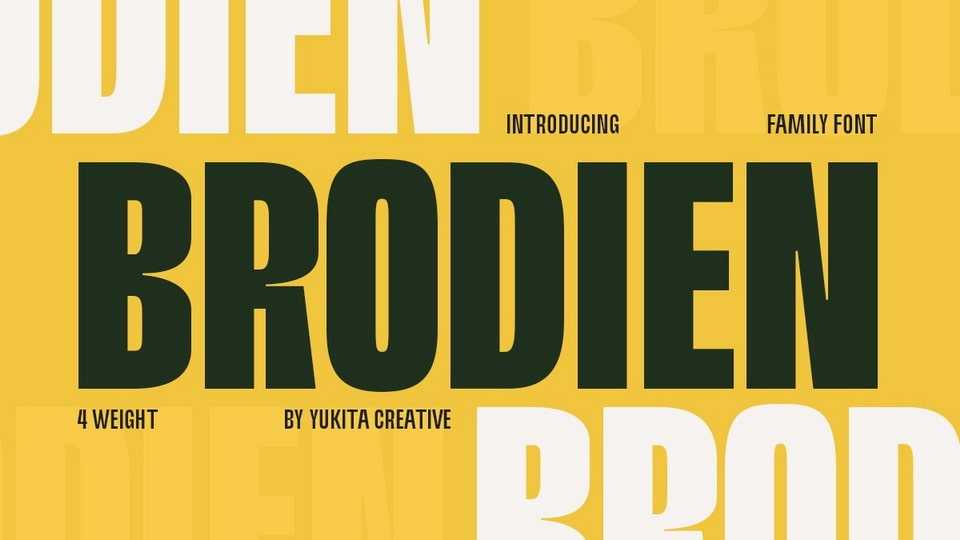
Download Brodien Condensed font, an attractive and versatile typeface, with its four weights offering wide design flexibility. With a clean and modern feel, this font is suitable for a variety of graphic design projects, from logo designs to marketing materials.
Designer: Yukita Creative